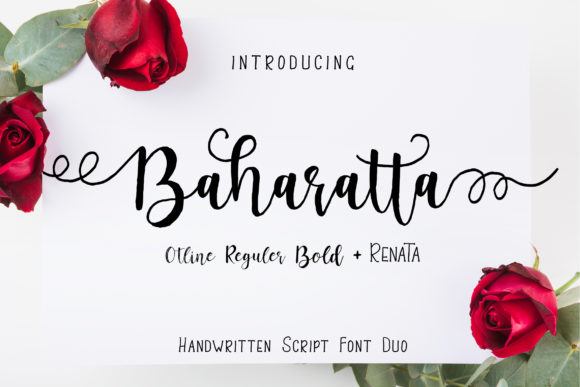
Baharatta Font
Journey into the world of Baharatta, a mesmerizing script font that captures the essence of elegance and grace. Its bold strokes and intricate details paint a picture of sophistication, perfect for adding a touch of luxury to your creative projects.
Created by the talented Star Studio, Baharatta is a handwritten font that exudes personality and charm. Each letter flows effortlessly into the next, creating a cohesive and visually appealing design. Its bold lines command attention, while its delicate curves add a touch of softness and femininity.
With Baharatta, you'll elevate your designs to new heights. Its versatility knows no bounds, making it the perfect choice for a wide range of projects. From wedding invitations and greeting cards to logos and branding, Baharatta effortlessly adapts to your creative vision.
Immerse yourself in the beauty of Baharatta and let your imagination soar. Its bold strokes and intricate details will transform your words into works of art. Experience the magic of Baharatta and unleash your creativity today!